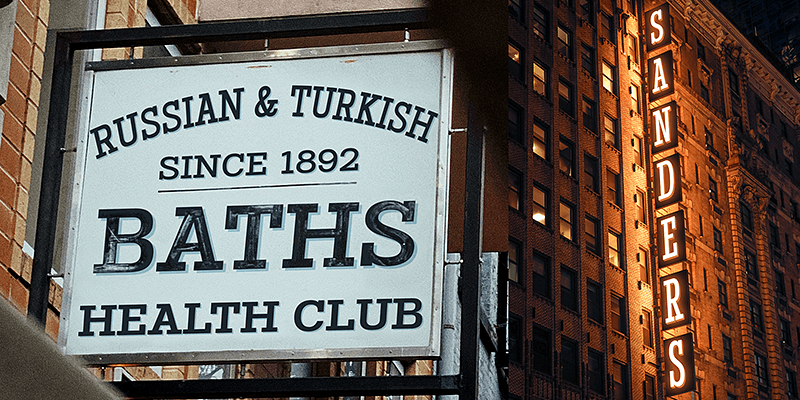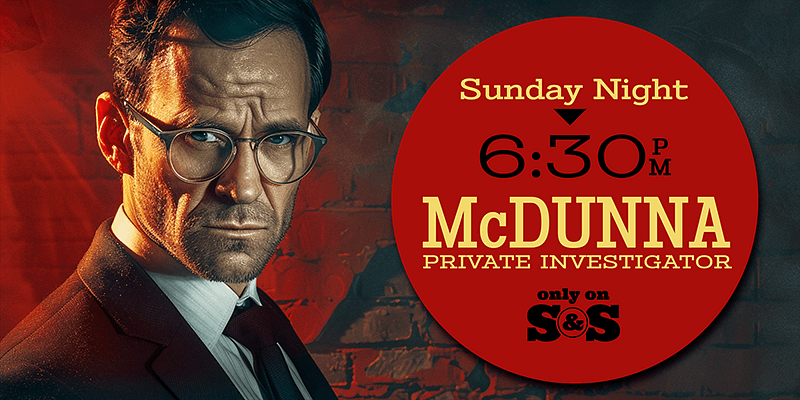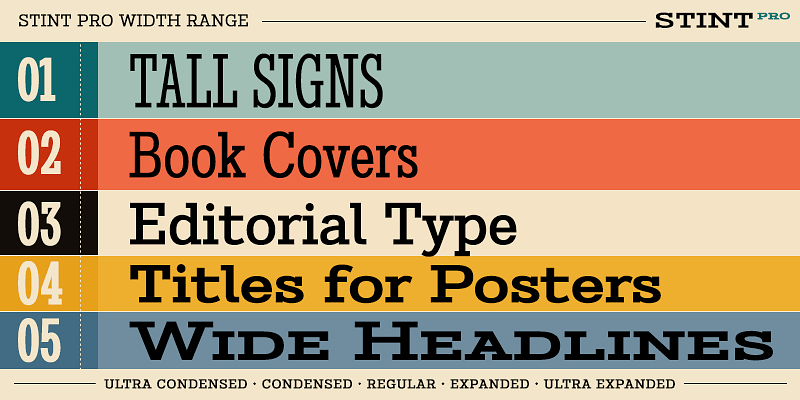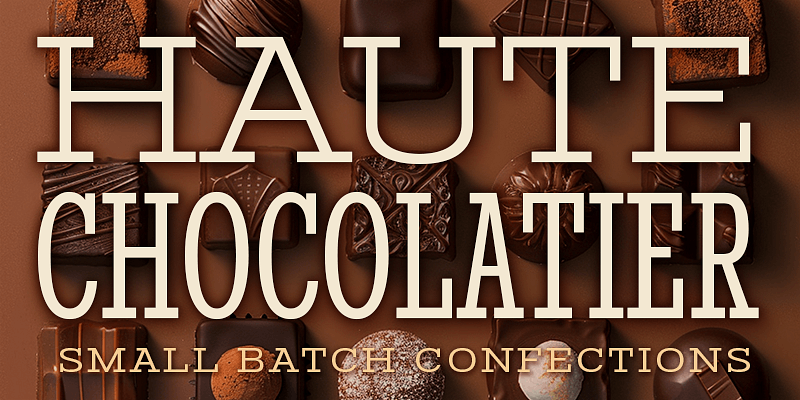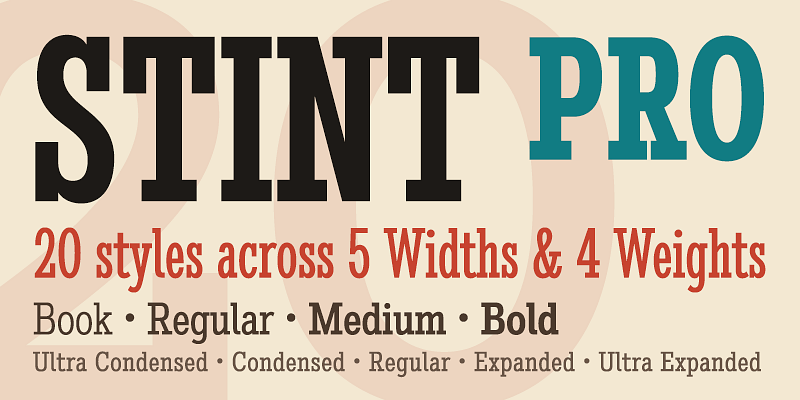
Stint Pro is a wide-ranging slab serif family designed for display typography with structure, personality, and flexibility. This Pro family includes 20 fonts across five widths and four weights, giving designers a broad typographic toolkit for headlines, posters, signage, packaging, editorial design, book covers, and identity systems.
The family moves from Ultra Condensed to Ultra Expanded, with Book, Regular, Medium, and Bold weights across each width. That range allows Stint Pro to adapt easily to different spaces and moods: narrow signs, compact titles, book covers, editorial layouts, broad headlines, and bold display treatments. Its slab serif forms have a classic commercial feel, but the full family structure makes it useful for modern design systems as well.
Stint Pro can feel refined, theatrical, architectural, playful, or authoritative depending on the width and weight selected. Use the condensed styles when space is tight or vertical energy is needed, the regular widths for balanced display work, and the expanded styles when a headline needs to stretch wide and command attention.
With its expanded range and strong display voice, Stint Pro brings vintage slab character into a flexible professional family.